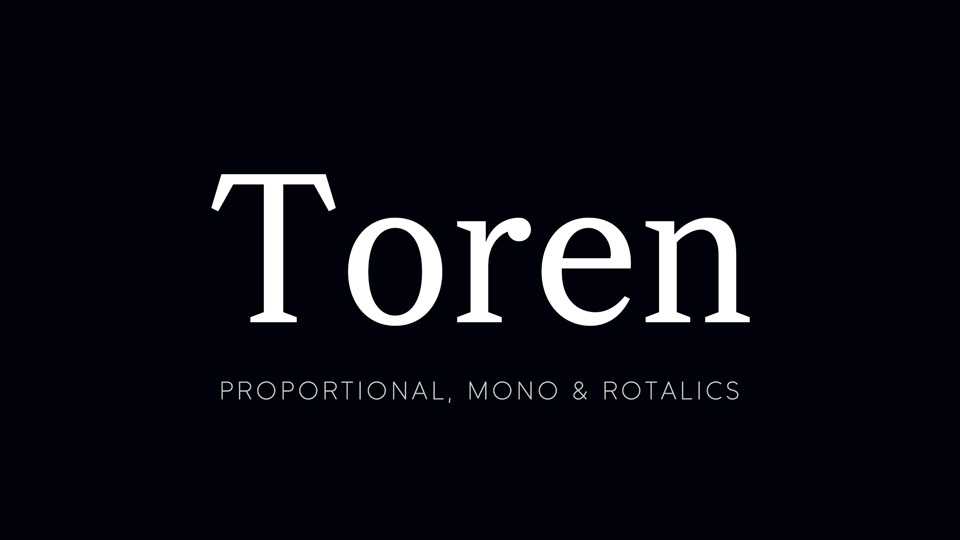
Download Toren typeface, a mono-proportional serif font family with rotalics. Toren font works great for texts, but also is suitable for display use.
Designer: Eli Heuer